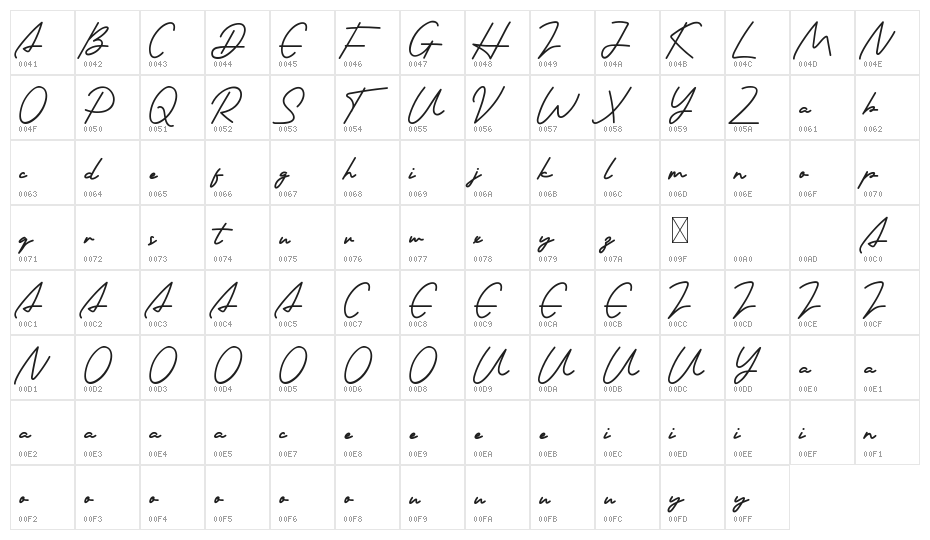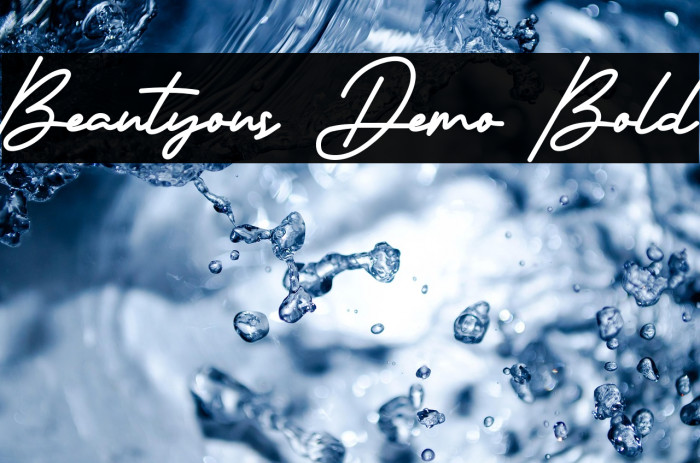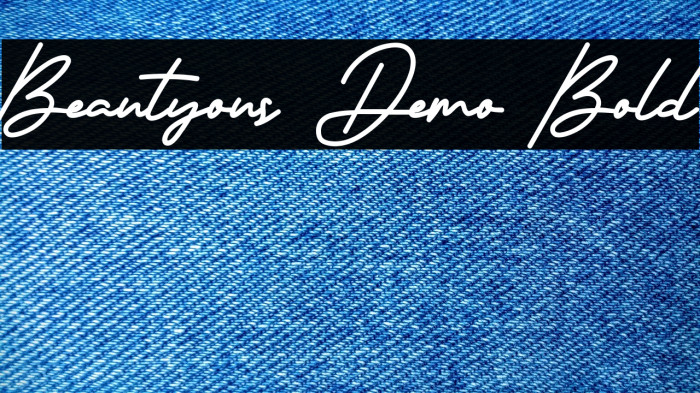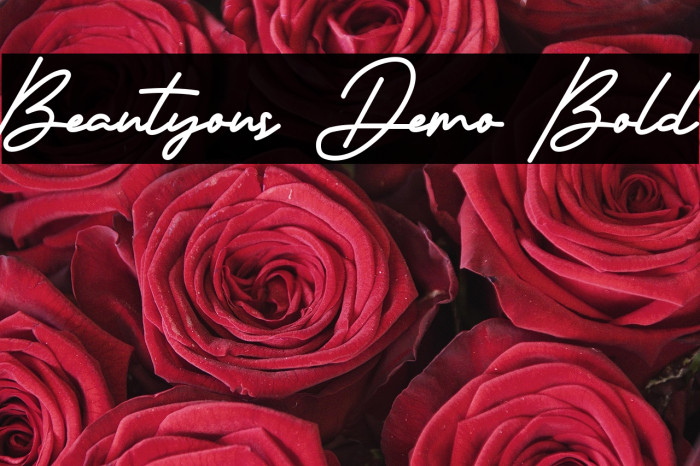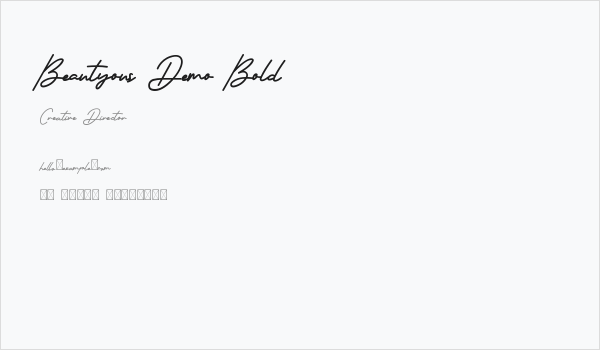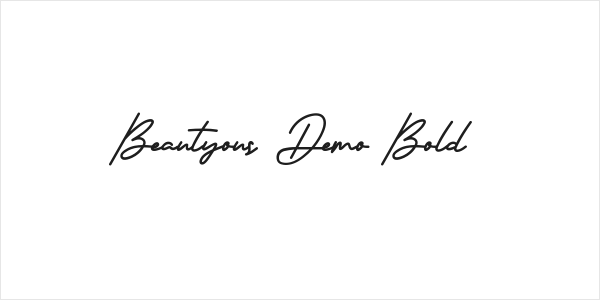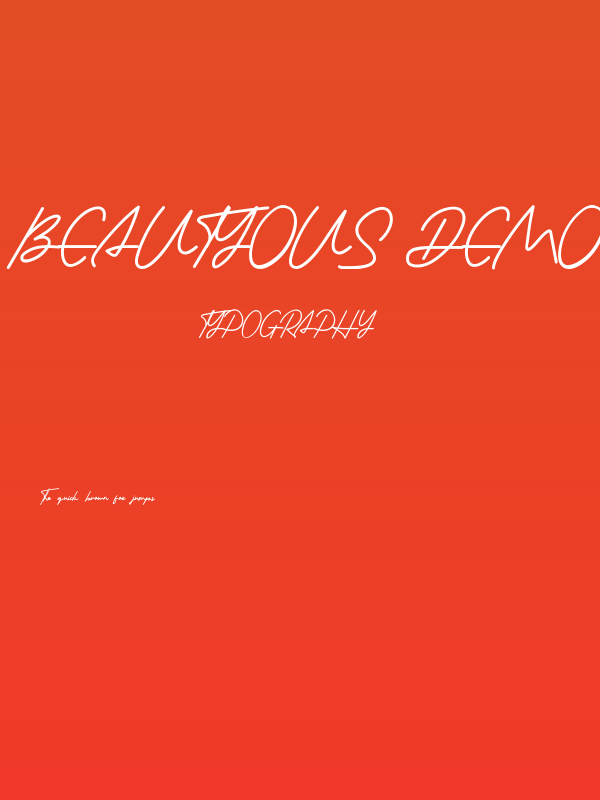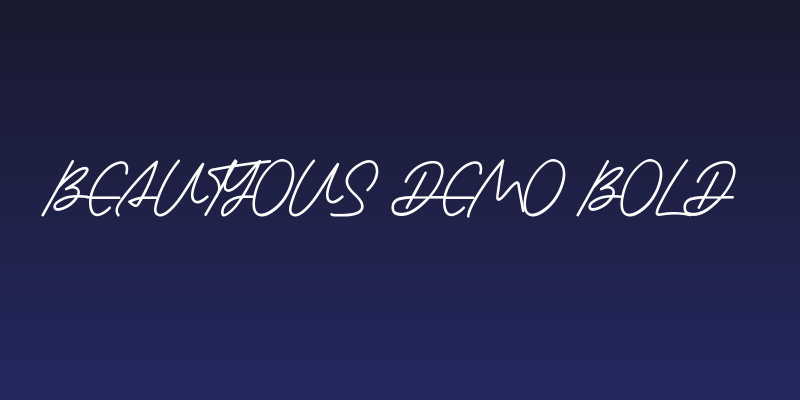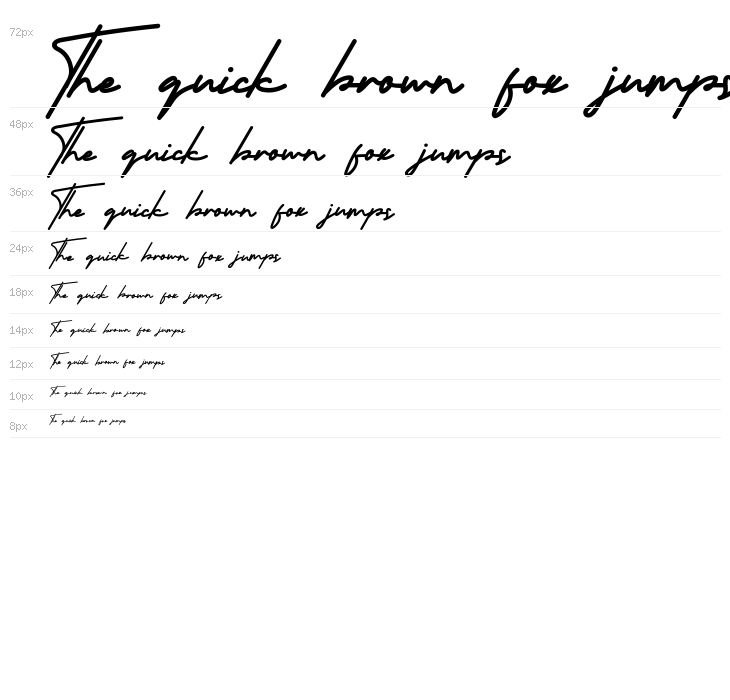
Beautyous Demo Bold Font
Beautyous Demo Bold Description
This font features an elegant and flowing script style, characterized by its smooth, cursive letterforms that mimic natural handwriting. The uppercase letters are particularly elongated and connected, creating a sense of continuity and fluidity. The lowercase letters maintain a consistent style, with rounded edges and a slight slant, enhancing the handwritten feel. The overall appearance is sophisticated and artistic, making it suitable for creative and decorative applications. The font's boldness adds to its visibility and impact, ensuring that it stands out in various design contexts.